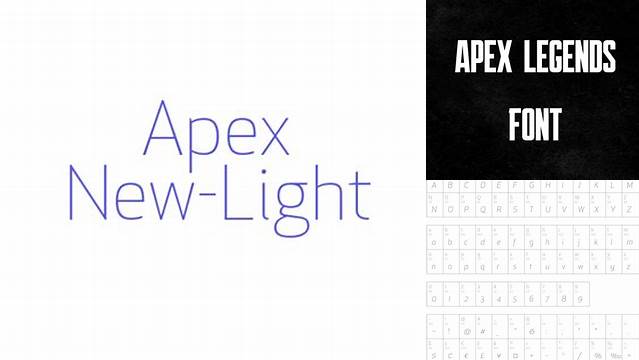
Hey guys! Are you on the hunt for a stylish, modern font that can give your designs a fresh, clean look? Then you're in luck, because today we're diving deep into the Apex New Light font, a fantastic typeface that's available for free download. We'll explore how you can get your hands on it, how to use it in your projects, and some cool tips to make the most of this awesome font. So, let's get started! First of all, the Apex New Light font is an incredibly versatile font that works well in a variety of design contexts. From sleek website headers to eye-catching social media graphics, this font can add a touch of sophistication and modernity.
Apex New Light Font: What Makes It Special?
So, what's the buzz about the Apex New Light font? Well, this typeface is known for its clean, modern aesthetic, making it perfect for contemporary design projects. Its lightweight style gives a sense of elegance and sophistication, which can significantly enhance the overall look and feel of your work. Whether you are creating website content, print materials, or digital artwork, the Apex New Light font has the potential to elevate your design projects. The characteristics of the Apex New Light font include a well-balanced design and a focus on readability. It is not merely a collection of letters and symbols; it's a carefully designed tool that can dramatically influence how your audience perceives your message. With the right font, you can convey professionalism, creativity, or even a bit of playfulness. And the best part is, the Apex New Light font is available for free download. This means you can get a high-quality font without breaking the bank. Moreover, the Apex New Light font is often chosen for its versatility. It works well across a wide range of design applications. Whether you are creating a sleek presentation, designing a modern website, or crafting social media graphics, this font adapts effortlessly to various mediums. Another important aspect of the Apex New Light font is its ability to enhance readability. In design, readability is essential for making sure that the message is easy to understand. The font's clear lines and balanced proportions help create a comfortable reading experience. In addition to these advantages, the Apex New Light font can be used to create a memorable brand identity. When you select a font, you're choosing the voice of your brand.